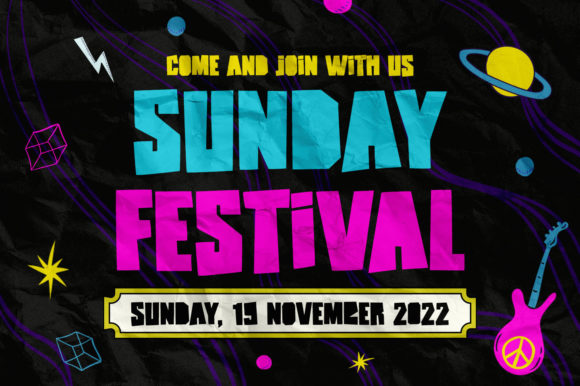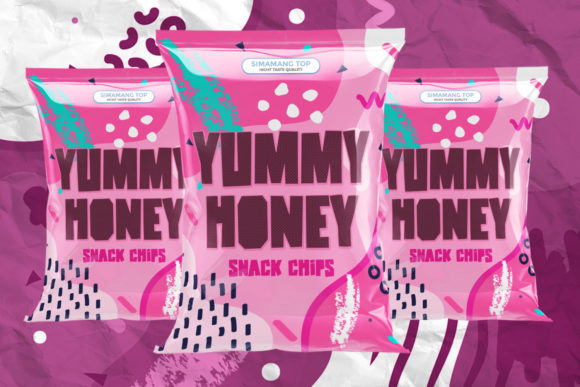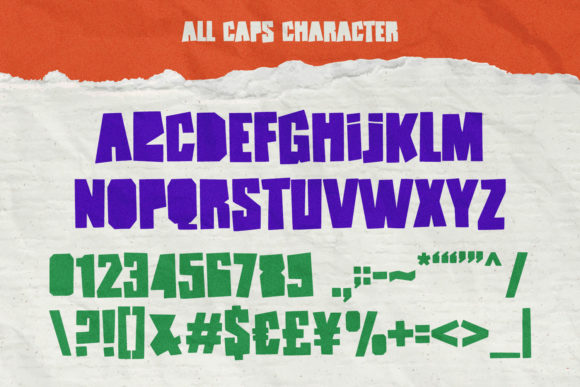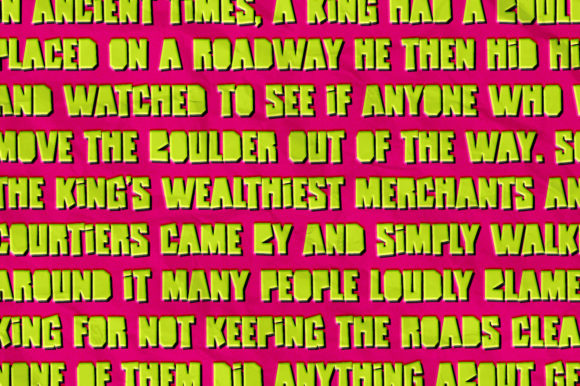
Introducing Blocky Notes Font: The Ultimate Display Font for Creative Projects
Are you tired of using the same old fonts for your creative projects? Do you want to add a touch of personality and uniqueness to your designs? Look no further than Blocky Notes Font, a cool and chunky lettered display font that’s sure to make your ideas come alive!
What is Blocky Notes Font?
Blocky Notes Font is a bold and colorful display font that’s perfect for adding a fun and playful touch to your designs. With its chunky letters and vibrant colors, this font is sure to grab attention and make your projects stand out. Whether you’re a designer, crafter, or DIY enthusiast, Blocky Notes Font is the perfect addition to your font collection.
Key Features of Blocky Notes Font
- Cool and Chunky Letters: Blocky Notes Font features thick, chunky letters that are perfect for creating bold and eye-catching designs.
- Colorful and Vibrant: This font comes in a range of bright and vibrant colors, making it perfect for adding a pop of color to your designs.
- Easy to Read: Despite its bold and chunky design, Blocky Notes Font is surprisingly easy to read, making it perfect for use in titles, headings, and other display text.
- Highly Versatile: Blocky Notes Font can be used for a wide range of projects, from posters and flyers to social media graphics and craft projects.
How to Use Blocky Notes Font
Blocky Notes Font is incredibly easy to use, even for those with limited design experience. Here are a few ways you can use this amazing font:
- Posters and Flyers: Use Blocky Notes Font to create bold and eye-catching posters and flyers that are sure to grab attention.
- Social Media Graphics: Add a touch of personality to your social media graphics with Blocky Notes Font, perfect for creating engaging and shareable content.
- Craft Projects: Use Blocky Notes Font to add a personal touch to your craft projects, from handmade cards to DIY decorations.
- Branding and Packaging: Blocky Notes Font is also perfect for use in branding and packaging, adding a fun and playful touch to your products.
Why Choose Blocky Notes Font?
With so many fonts to choose from, why should you choose Blocky Notes Font? Here are just a few reasons:
- Unique and Eye-Catching: Blocky Notes Font is a truly unique and eye-catching font that’s sure to make your designs stand out.
- High-Quality Design: This font is designed to the highest standards, ensuring that it looks great in any design.
- Easy to Use: Blocky Notes Font is incredibly easy to use, even for those with limited design experience.
Blocky Notes Font is a cool and chunky lettered display font that’s perfect for adding a touch of personality and uniqueness to your designs. With its bold and colorful design, this font is sure to make your ideas come alive! Whether you’re a designer, crafter, or DIY enthusiast, Blocky Notes Font is the perfect addition to your font collection.